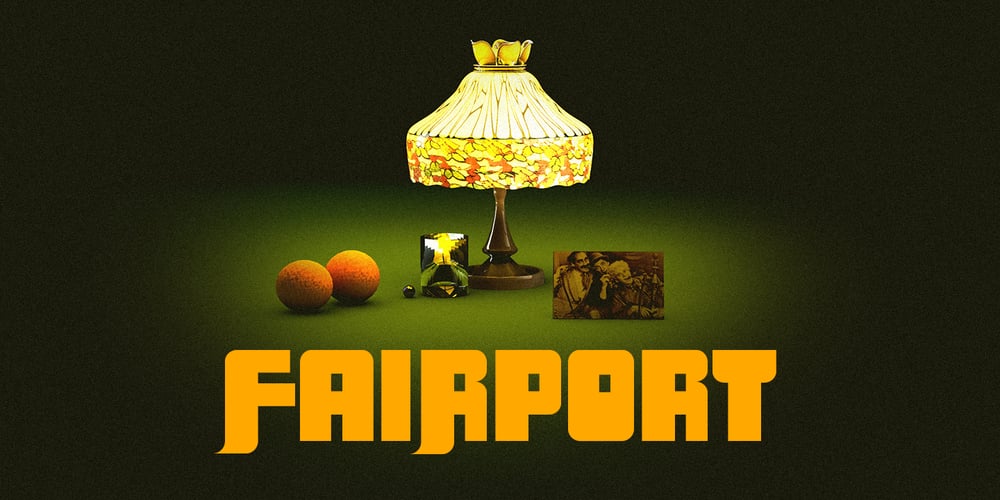
Fairport
Fairport font
Fairport Font Family was designed by published by Ryan Corey. Fairport contains 1 styles and family package options. Fairport is a fully functioning display font based on the lettering from the 1960s folk band Fairport Convention’s debut album. In lieu of lowercase letters, Fairport features a full array of stylistic alternates to add variety to any text.